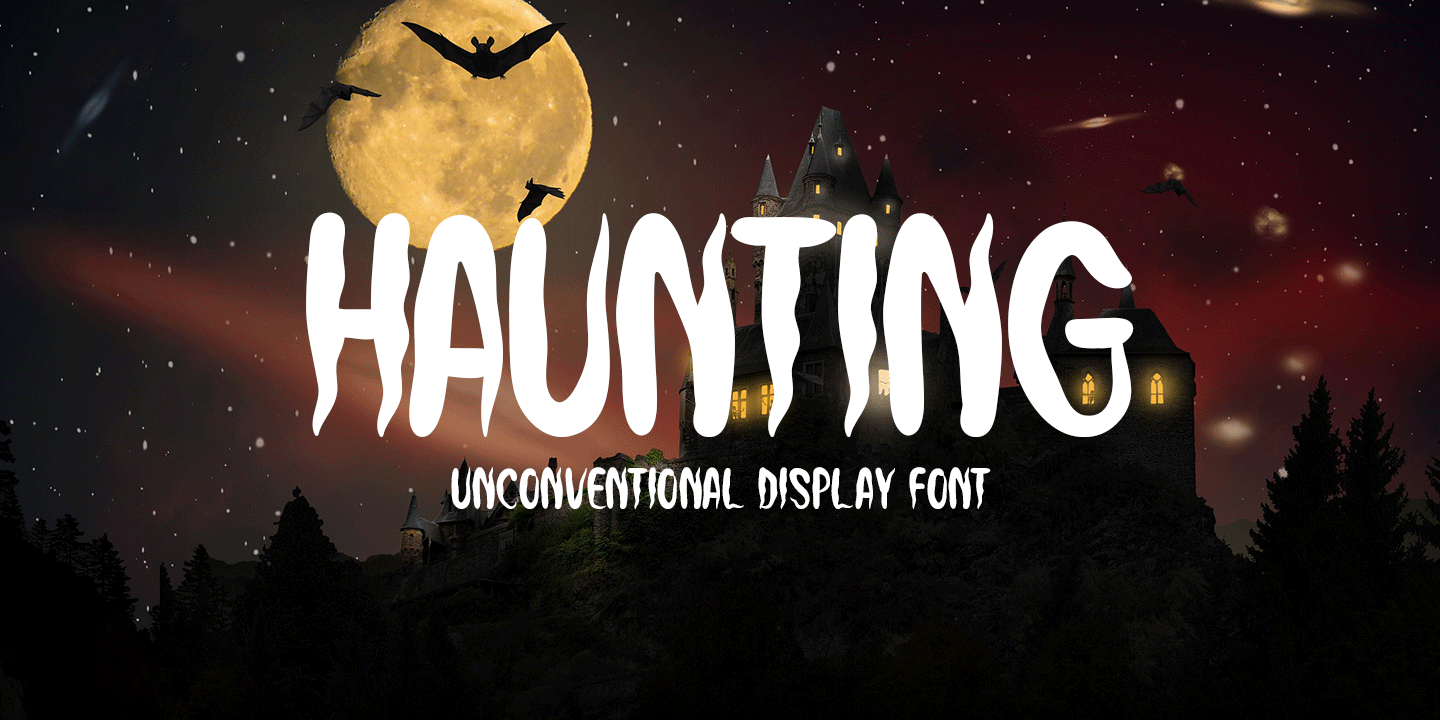
HAUNTING
Designed by Md. Shohail Bhuiyan, Haunting is a hand display font family published by Seemly Fonts.
Haunting stands out as an unconventional yet striking display font meticulously designed to elevate stationery, logos, t-shirt designs, printed media, web headers, photo frames, flyers, music covers, posters, image sliders, and an array of creative applications.